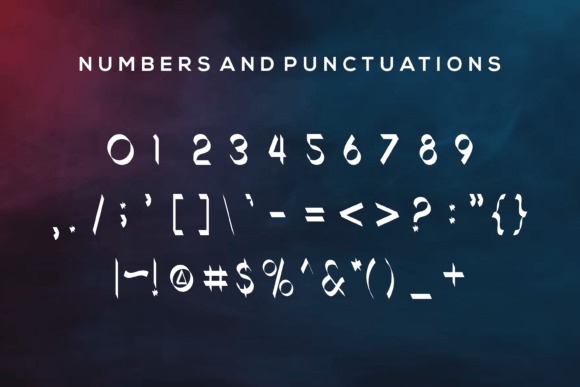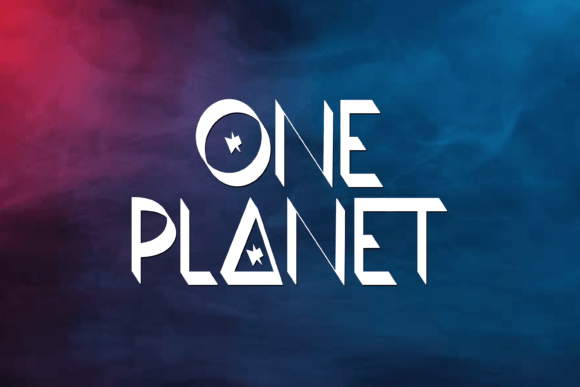
Squersmars Font
Squersmars is a cool and modern slab serif font. This font was particularly crafted for those who need a beautiful and refreshing look to their designs.